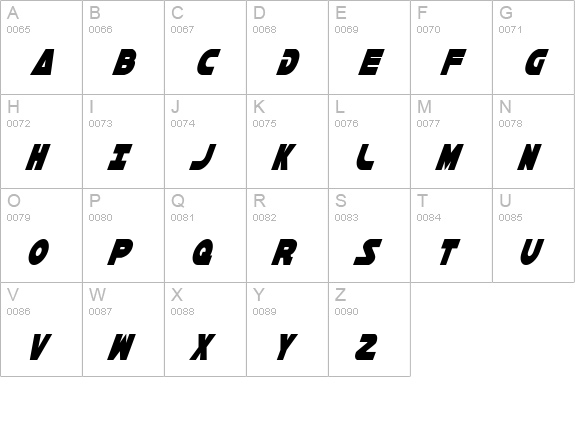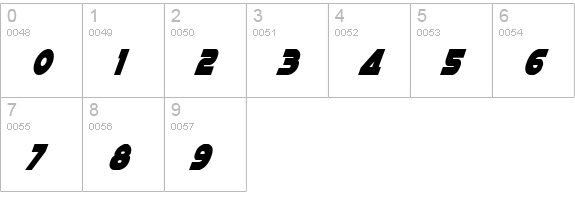
Han Solo Condensed Italic Font Details
Han Solo Condensed Italic is a distinctive, condensed-width, italic variant in the Han typeface family \xE2\x80\x94 well suited to design and typography projects.
Introducing Han Solo Condensed Italic, a sleek and stylish font that exudes an air of confidence and adventure. This condensed italic typeface is perfect for adding a touch of sophistication to any design project, whether it's a logo, website, or print material. The slightly slanted letters give it a dynamic energy, while the condensed form allows for maximum impact in a limited space. With its sharp and distinctive strokes, Han Solo Condensed Italic commands attention and elevates any text to a new level of elegance. Whether you're creating a bold headline or adding a subtle touch of flair to body text, this font is sure to make a lasting impression. And the best part? Han Solo Condensed Italic is completely free! That's right, you can freely download this captivating font at FontsMarket.com, making it accessible to all designers and creatives. Don't miss out on this fantastic opportunity to enhance your projects with a font that combines style, versatility, and affordability. So why wait? Download Han Solo Condensed Italic today and let your designs soar to new heights. Whether you're a seasoned professional or just starting out, this font is sure to become a valuable asset in your creative arsenal. Embrace the spirit of adventure and add a touch of class to your projects with Han Solo Condensed Italic.